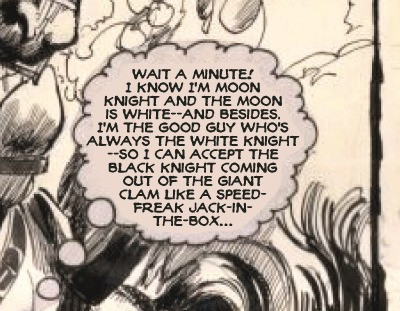
Moon Knight Font
Moon Knight Font is a chunky, comic, and cartoon display font. With its neat and joyful personality, this font will enhance any project you wish to create!